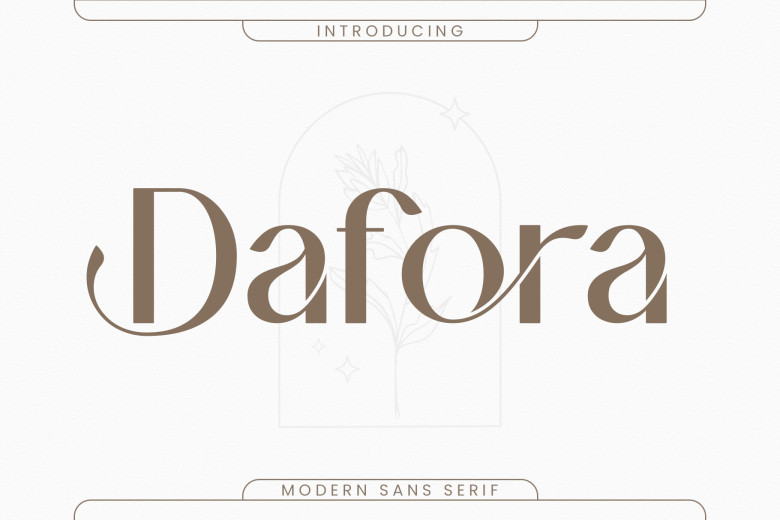
Dafora Font
Dafora Font is an elegant, sleek, elegant and fashionable sans serif font with gorgeous character that makes it suitable for many designs such as invitation cards, corporate logos, movies titles, books titles, business card titles and Brand names.
Dafora stands out with its delicate Sans Serif typeface radiating elegance and sophistication; its exquisite variations and ligatures make it the ideal companion for any design project.
Dafora Sans Serif Font